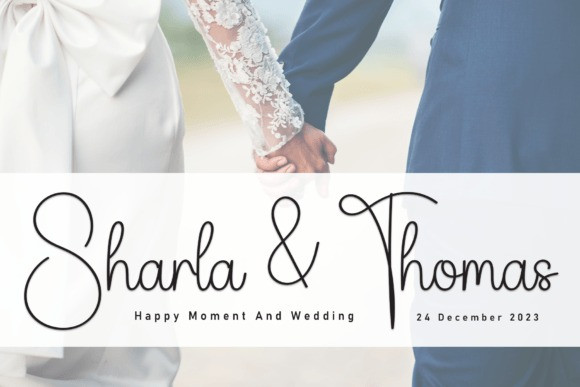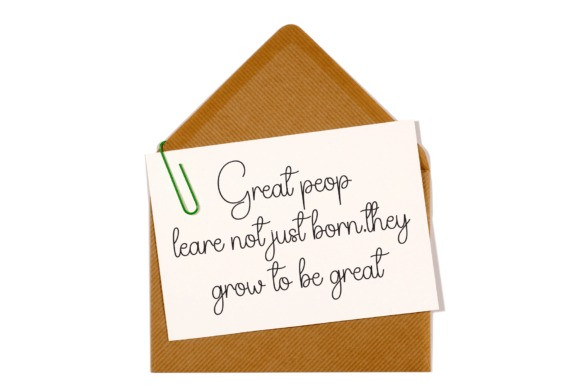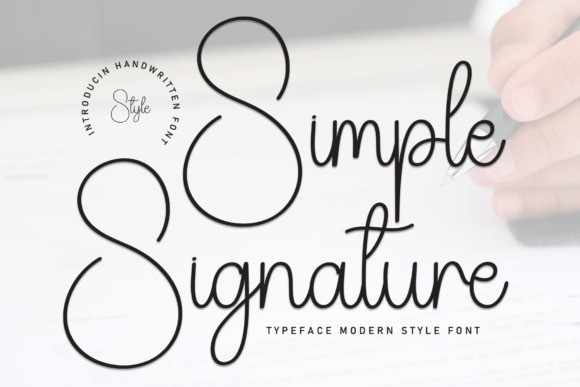
Simple Signature Handwriting Font
Simple Signature Handwriting Font is a contemporary calligraphy font that adds a touch of elegance to your projects. With its modern and stylish strokes, this font brings a clean and sophisticated vibe to your signature-style text. Perfect for a variety of uses, Simple Signature effortlessly combines simplicity and flair, making it an excellent choice for a sleek and personalized touch in your design work.